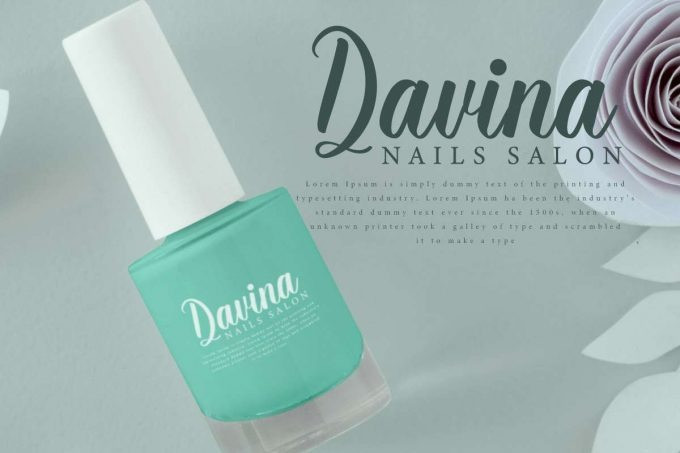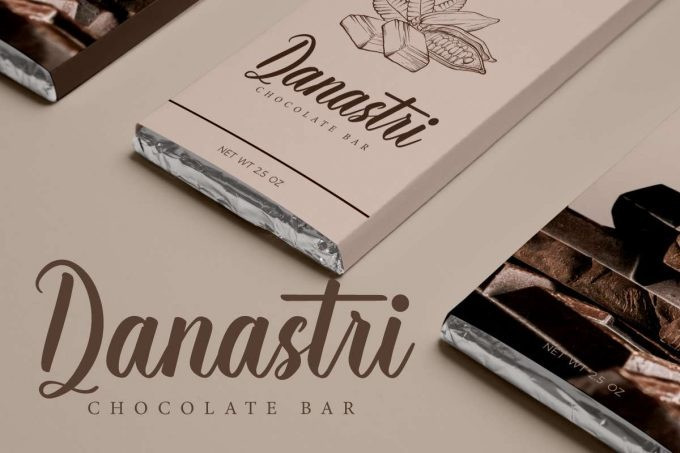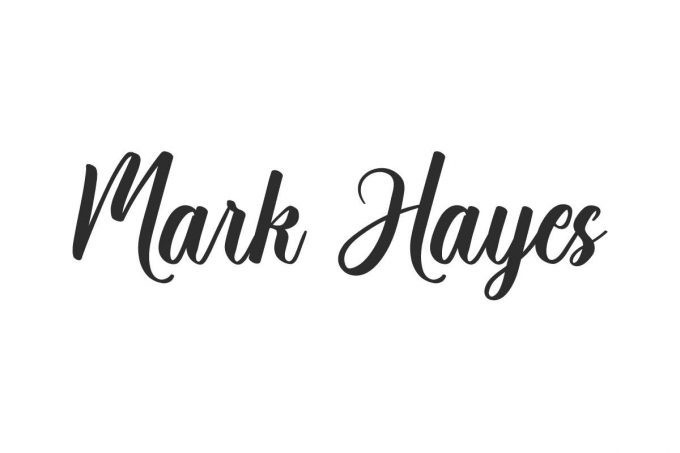
Mark Hayes Font
Mark Hayes Script Font is a graceful calligraphy script font with a modern look. This font is a form of perfection that has charm for any type of your designs, such as brand logo, embossed design, label, poster, product packaging, quote, signage, stationery, sticker, title, watermark, website, and much more!
Mark Hayes Font comes with a full set of Uppercase and Lowercase Basic Characters, Number, Punctuation, Symbol. This font also features ligature characters to make for perfect binding. Use this for your business industry such accessories, art, furniture, home decor, nail salon, photography, printing, publishing, real estate, restaurant, spa, etc.